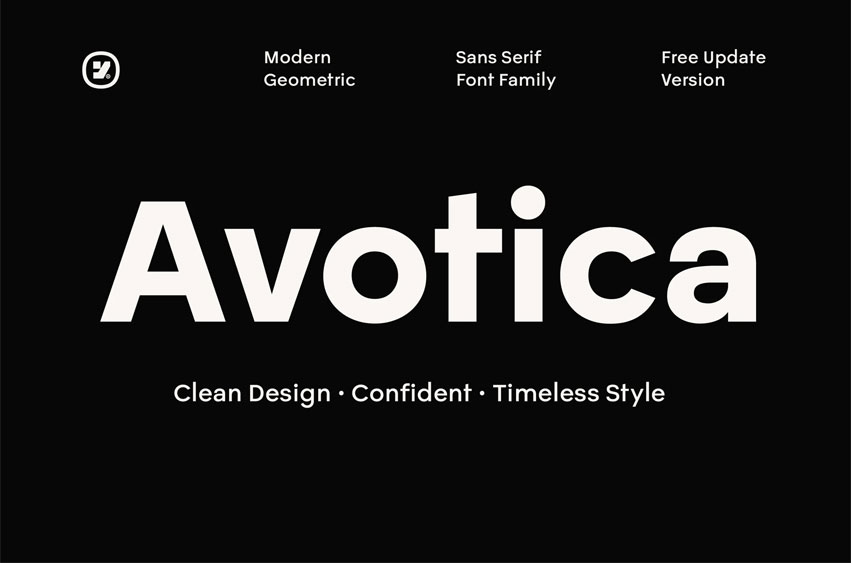
Avotica Font is a clean and modern geometric sans serif font family designed for today’s visual needs. Featuring 6 distinct weights – Regular, Medium, Semibold, Bold, Extra Bold, and Black – Avotica offers exceptional versatility for any creative project.
With its precise shapes and balanced letterforms, Avotica is perfect for branding, headlines, web design, packaging, posters, editorial layouts, and digital interfaces. Inspired by modern design trends, this typeface combines minimalism and strong geometry to create a timeless and professional appearance. Whether you’re working on a startup identity, a tech-driven UI/UX design, or a stylish promotional graphic, Avotica delivers clarity, elegance, and boldness.
• 6 Font Weights: Regular to Black
• Geometric and minimal sans serif style
• Multilingual support included
• Ideal for modern branding, headlines, and digital design